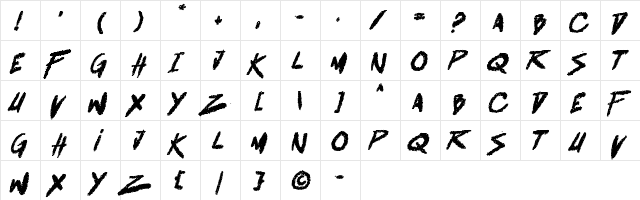
battle breath Bold Italic
Design Context for battle breath Typeface
battle breath is a composed and adaptable typeface that performs quietly and consistently across a wide range of design contexts. The dynamic lean of this cut emphasises speed and emphasis in any layout. The heavy weight commands attention and anchors typographic hierarchies.
Pro Tip: Try battle breath for annotation and caption copy alongside an upright companion — the contrast in angle creates a dynamic but ordered typographic system.